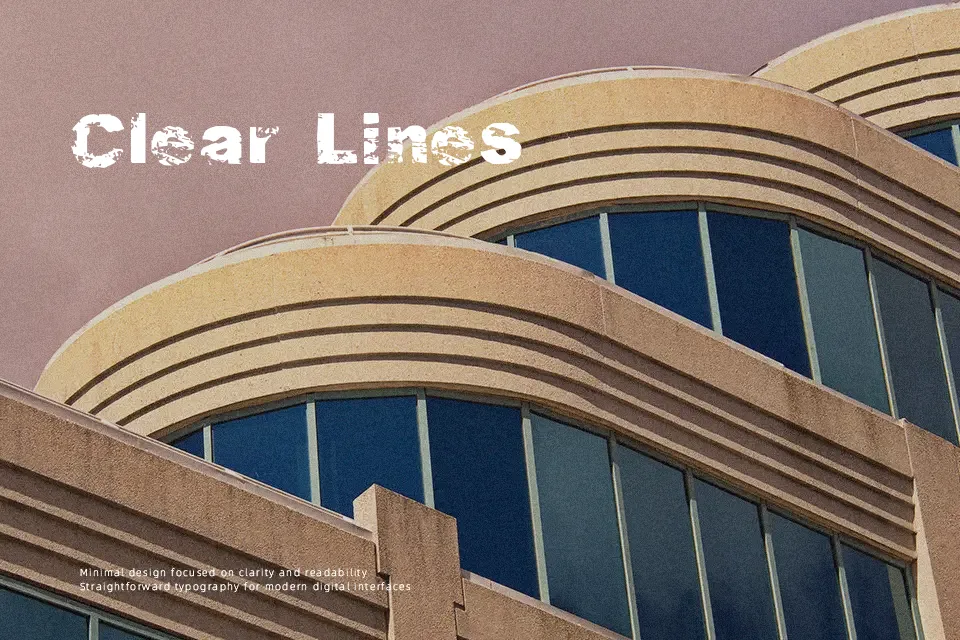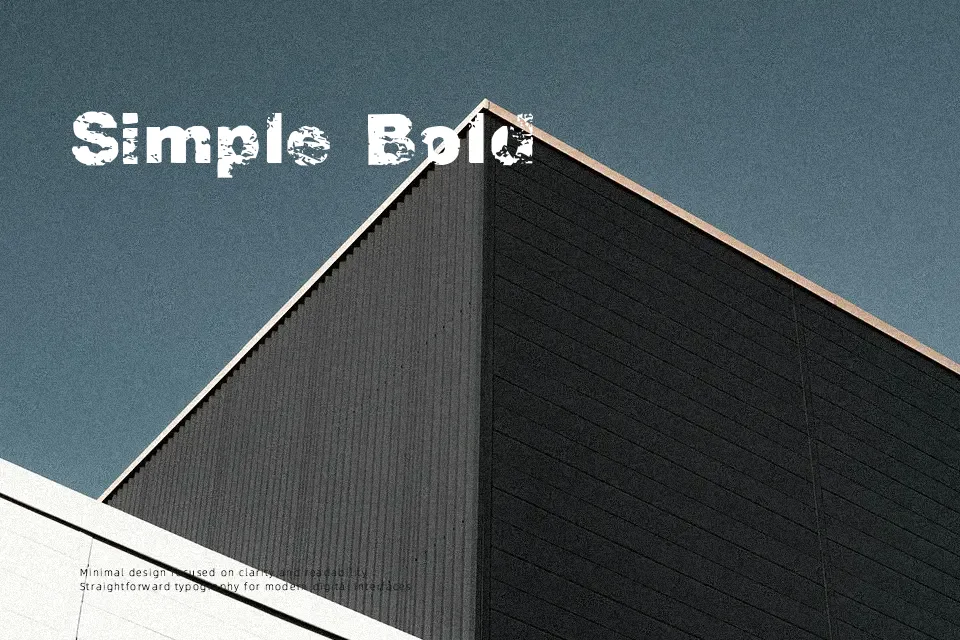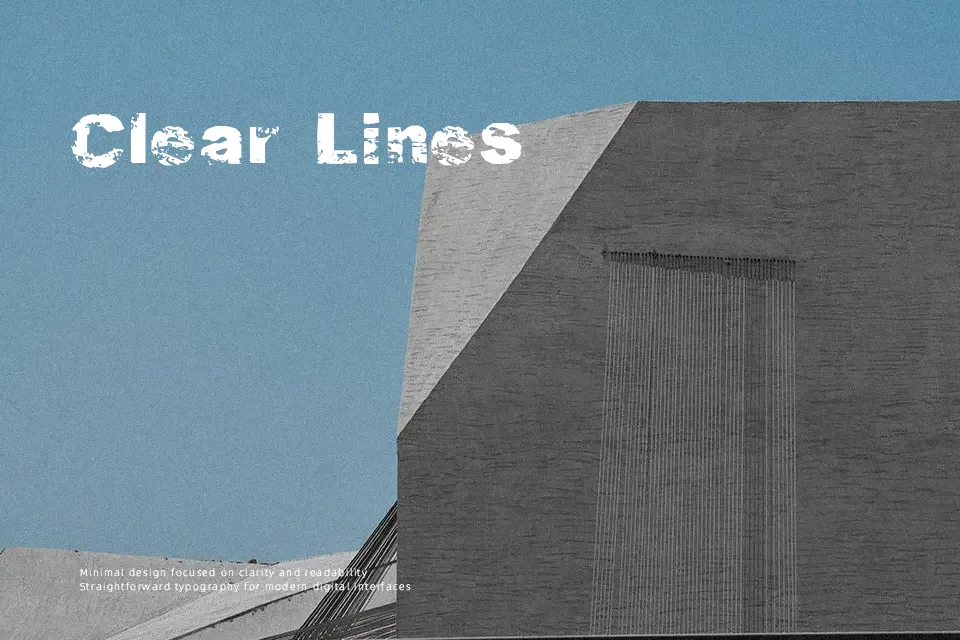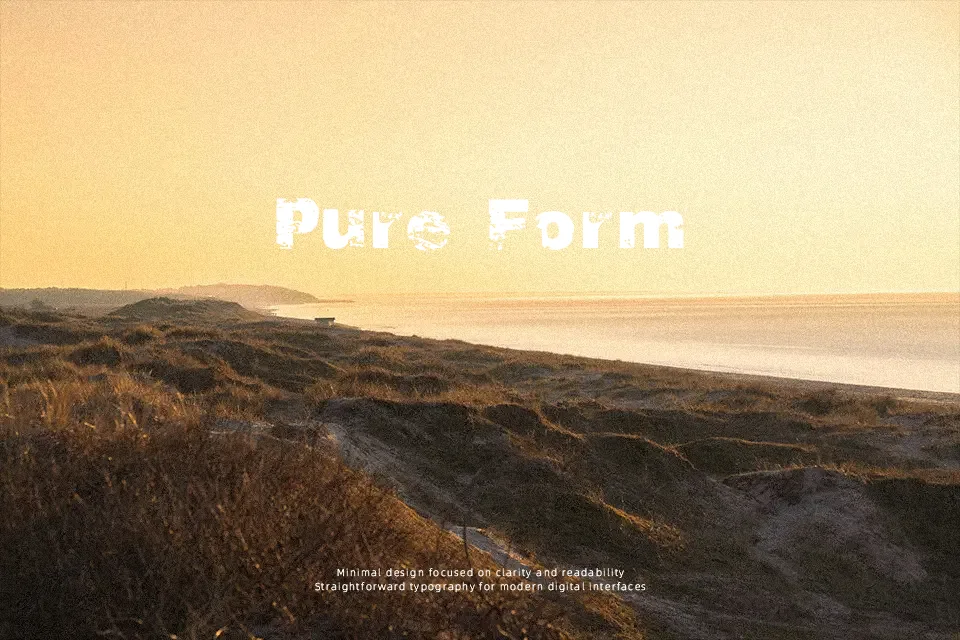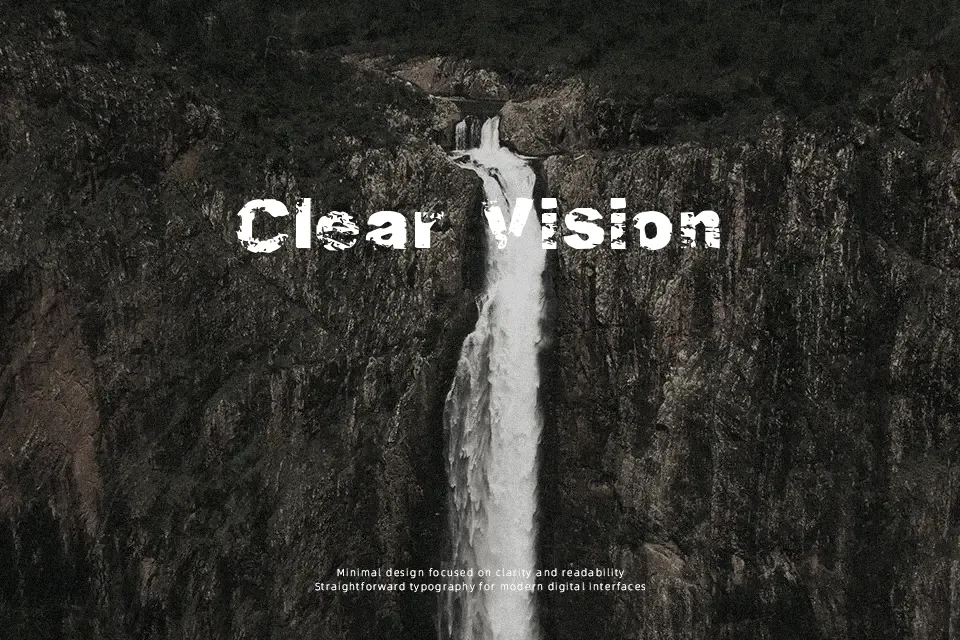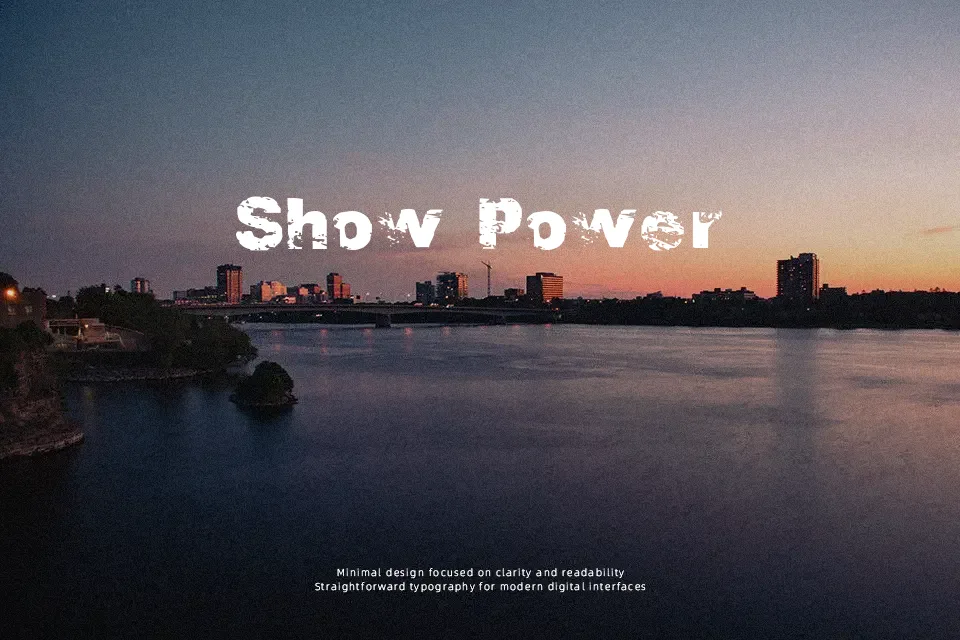
PDRPT Font
PDRPT Font performs best when displayed at larger sizes, where its fragmented outlines and uneven edges remain visible. The letterforms use heavy, irregular strokes with distressed breaks that create a rough, damaged texture. Compact proportions and closely fitted shapes give short words a dense visual rhythm, while the uppercase and lowercase characters maintain a similarly disrupted appearance. It works well for dark poster titles, album graphics, and dramatic social media artwork. The texture gives headlines a forceful presence, but small text and long passages become difficult to read.
Best For: horror movie posters,dark music artwork,grunge apparel graphics,dramatic social media headlines
Not Ideal For: long paragraph text,small interface labels,corporate reports,technical manuals
Perfect for headline, music, and poster, with a dark and decorative style.